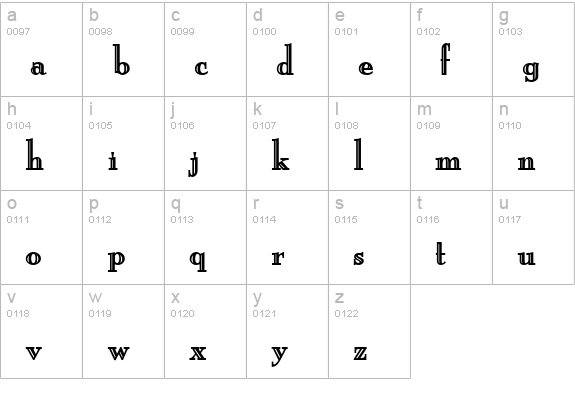
New England Engraved Bold is a strong, high-contrast variant in the New typeface family \xE2\x80\x94 well suited to headlines, attention-grabbing titles, and strong calls-to-action.
New England Engraved Bold font is a timeless and elegant typeface that exudes sophistication and class. Its sharp serifs and bold strokes make it perfect for adding a touch of refinement to any design project. Whether used for headings, logos, or invitations, this font commands attention and leaves a lasting impression. What's even better is that New England Engraved Bold font is available for free download at FontsMarket.com. Don't miss out on the opportunity to enhance your creations with this stunning and versatile typeface. Download it today and elevate your designs to new heights of excellence.